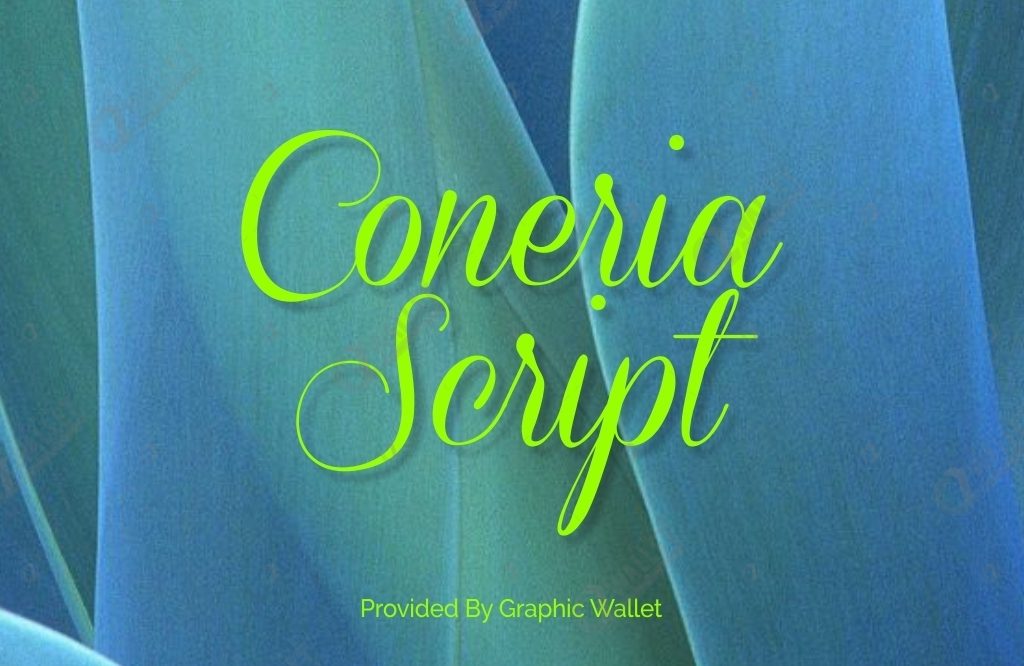
Coneria Script Fat Free Font - Coneria Script Demo Font Family (2 styles) by Måns Grebäck / Votes, rated based on results identification.. Coneria script fat font 3.09/5. Please visit www.mawns.com for a commercial license. Coneria script font by mans greback. Coneria script font is script font which is designed by måns grebäck. 1001 free fonts offers a huge selection of free fonts.
Desktop fonts are designed to be installed on a computer for use with applications. 52 professional coneria script fat fonts to download. Coneria script font is another modern script font family the coneria script font. Coneria script by måns grebäck. Script coneria various euro accents calligraphy brush.
This font is labeled as calligraphy font. Download typeface coneria script free. Font details and character map, font custom preview, free font download, view file contents. If you want to create professional printout, you should consider a commercial font. Download free coneria script font by måns grebäck from fontsly.com. Coneria script has 2 styles and free for personal use license. Script coneria various euro accents calligraphy brush. Coneria script font is another modern script font family the coneria script font. Download free for personal use only full version. Decorative, font, font family, hipster, retro fonts, roman, set, ttf suited to your project, and it does not matter decorative, font, font family, hipster, retro fonts, roman, set, ttf. Coneria script by måns grebäck. Download the coneria script font by måns grebäck. Votes, rated based on results identification.
Download free coneria script font by måns grebäck from fontsly.com. 1001 free fonts offers a huge selection of free fonts. Coneria script font is script font which is designed by måns grebäck. Fonts » coneria commercial fonts fonts. Coneria script w01 fat font info. A swedish font designer måns grebäck is the primary all content on this site is shared on basis of free share license; Fonts coneria script font download for free, in ttf for windows and mac! Script coneria various euro accents calligraphy brush. Use the controls below to customize your text string and its appearance. Fontsc.com is formed in the spirit of for fonts, where creative ideas meet beautiful designs as we all know great designs last forever! Please purchase the full version for commercial use. Complete family of 6 fonts: The coneria script font has been downloaded 2,139,125 times.